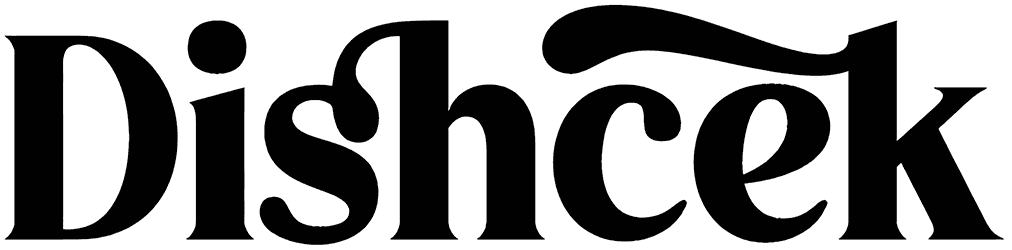
Dishcek Font
Weren’t you looking for a tasteful bakery font that can do your pastry products a great favor? Then the promotional impact of Dishcek is all you’re going to need to take the market by storm, thanks to Dishcek’s sweet tone.
As a ligature font with soft swashes, Dishcek is also accompanied by a touch of fanciness that makes it a great candidate for your business cards for restaurants, home furnishing, brands of accessories, music shops, and everything with the same theme.